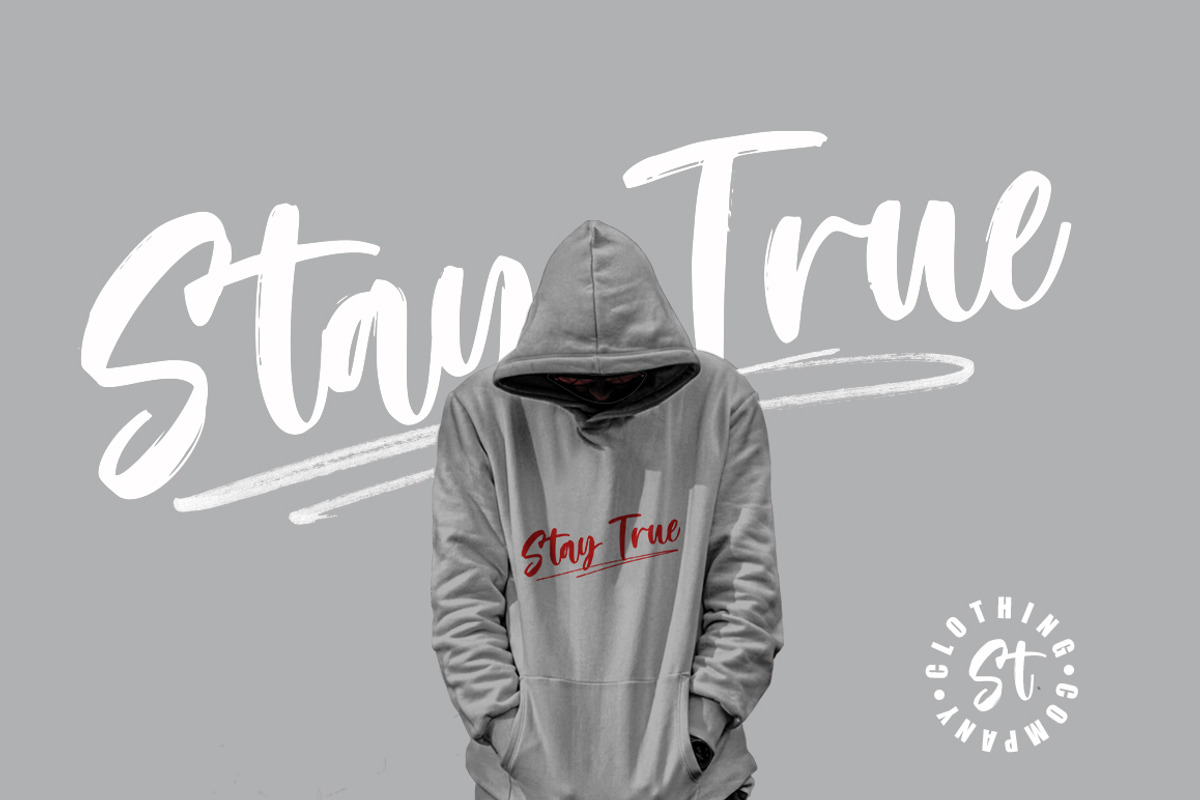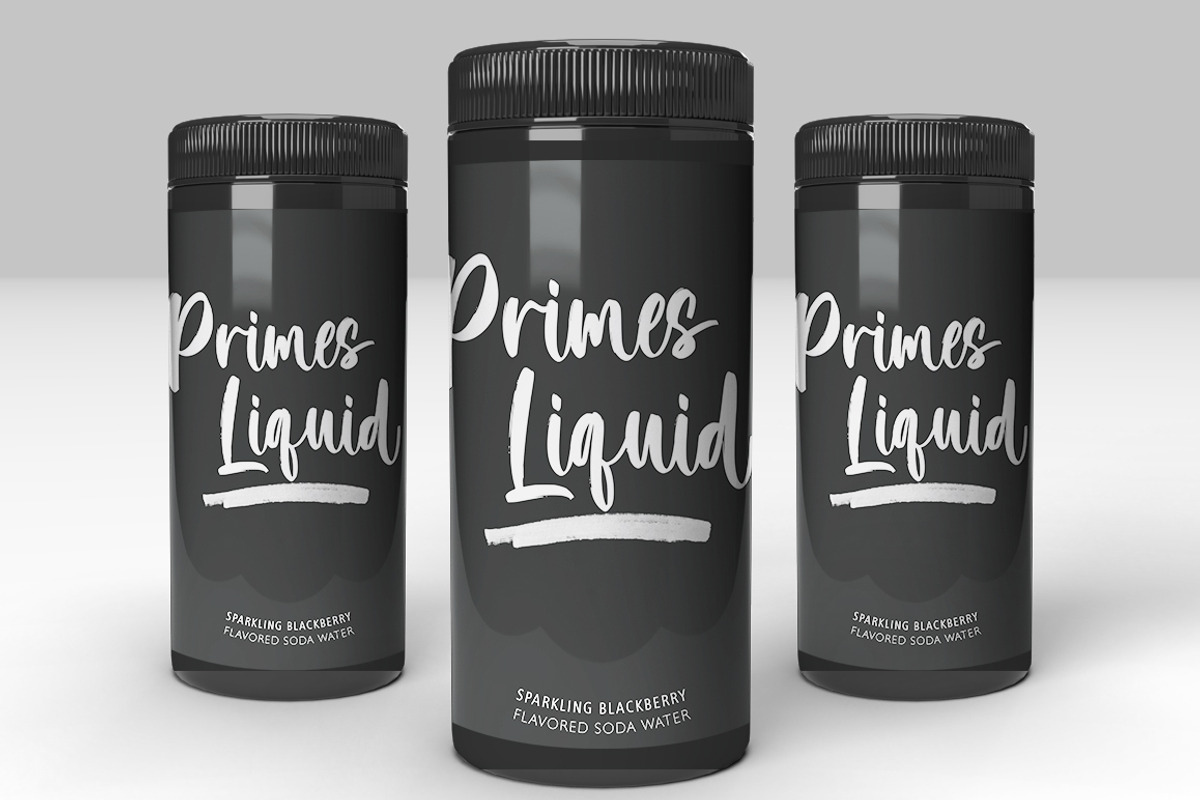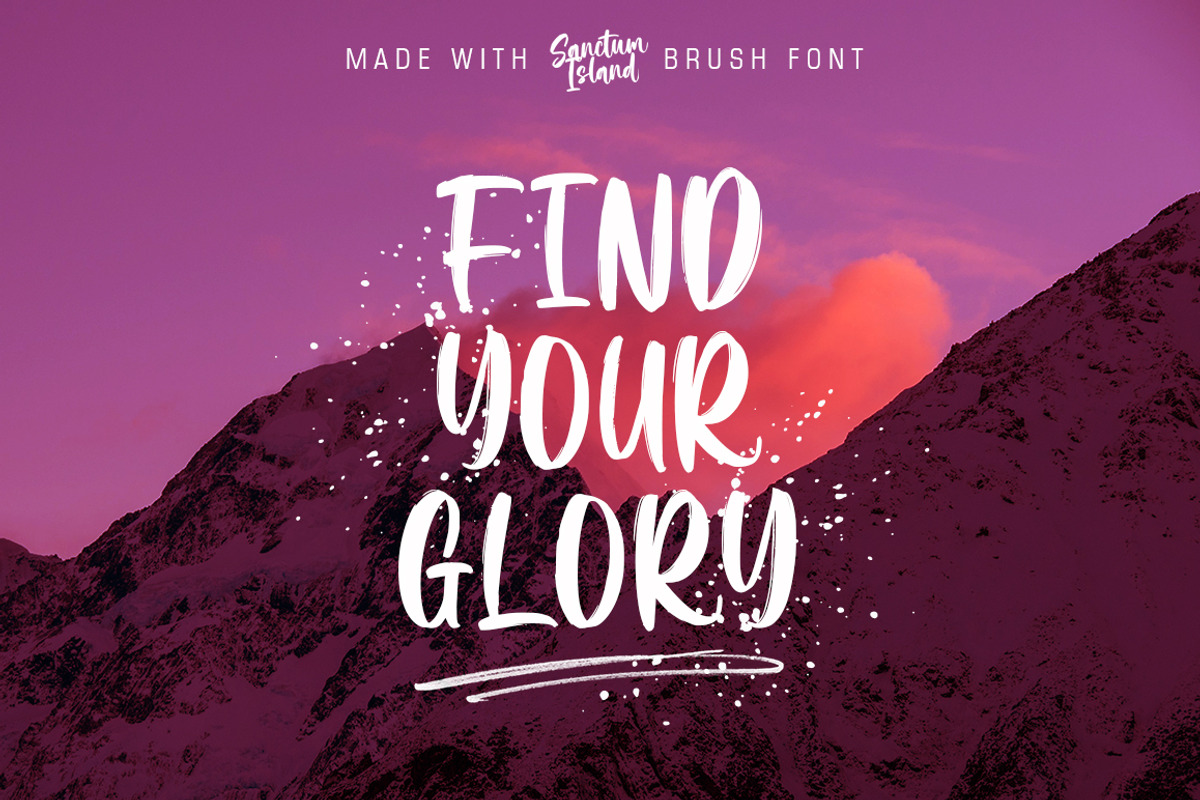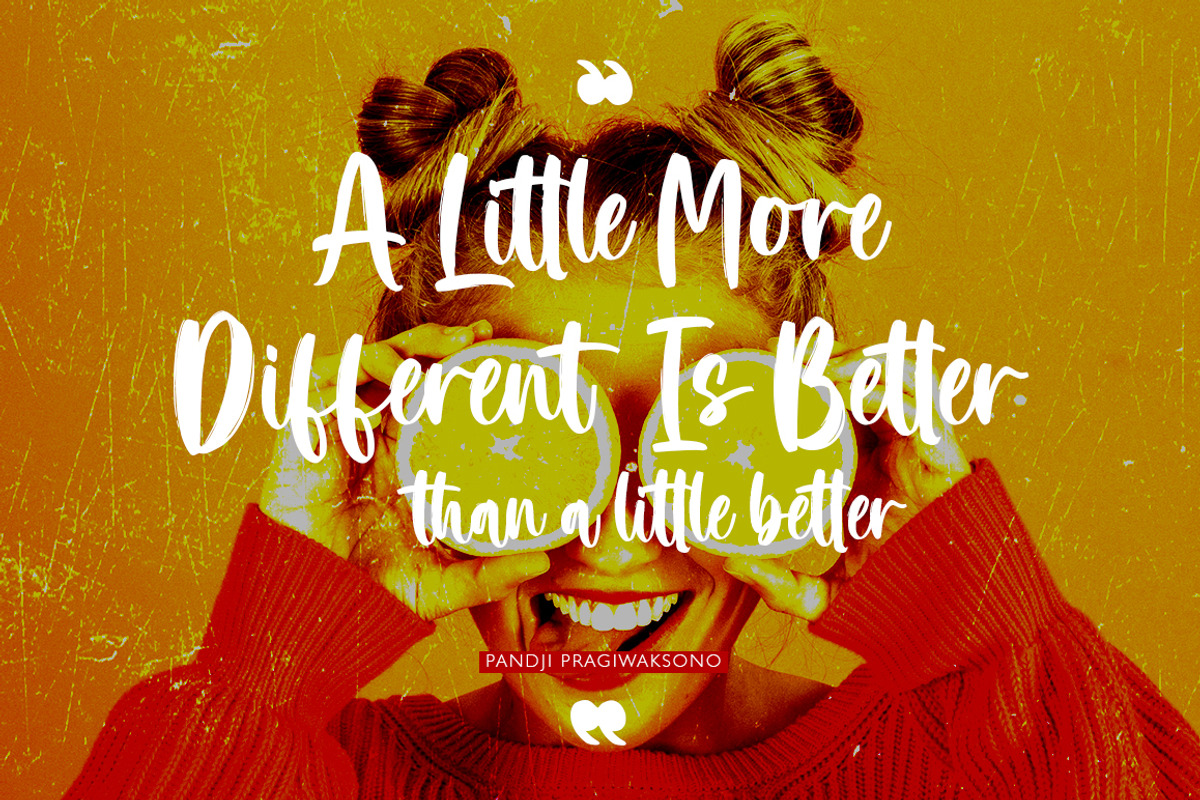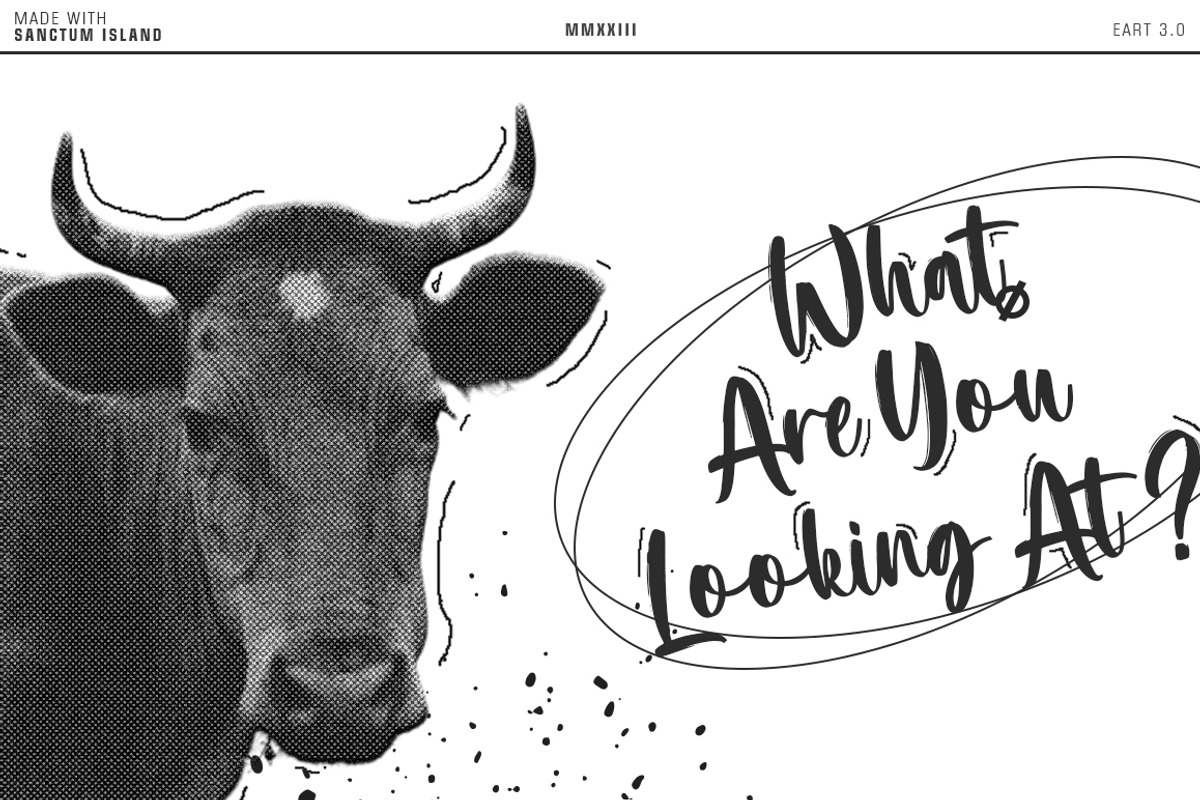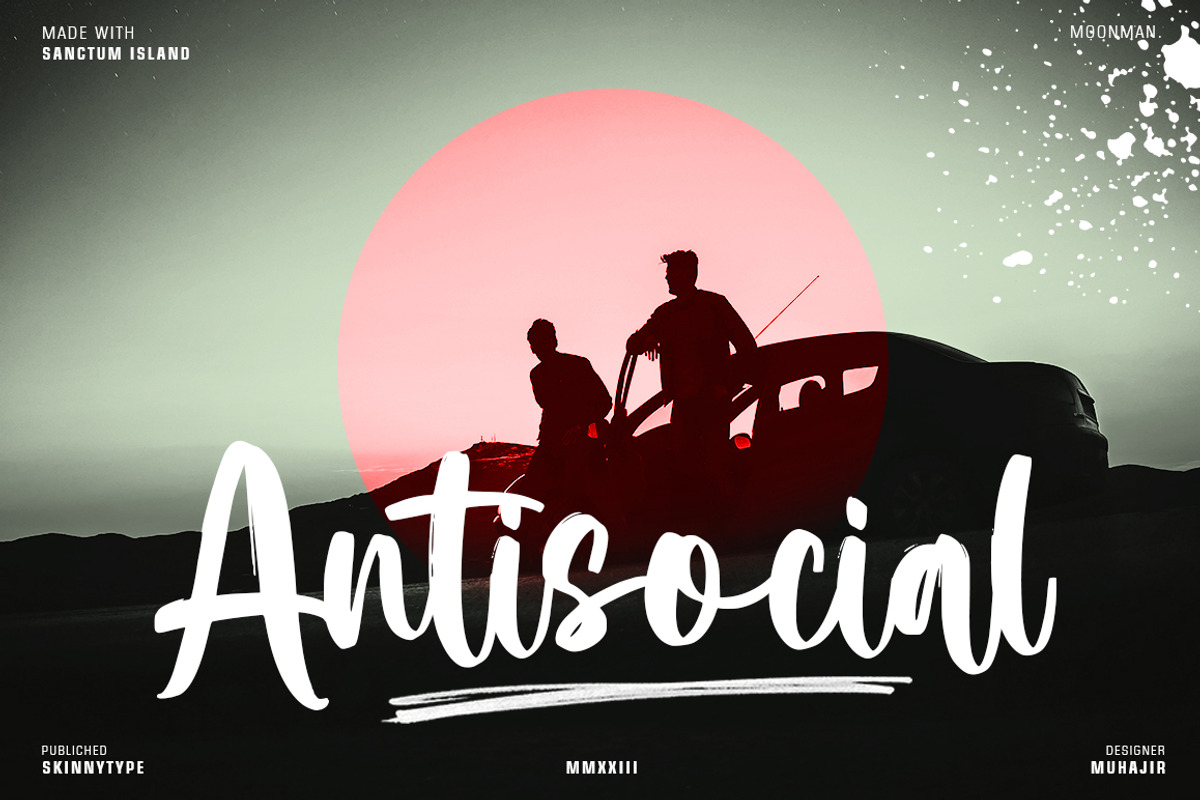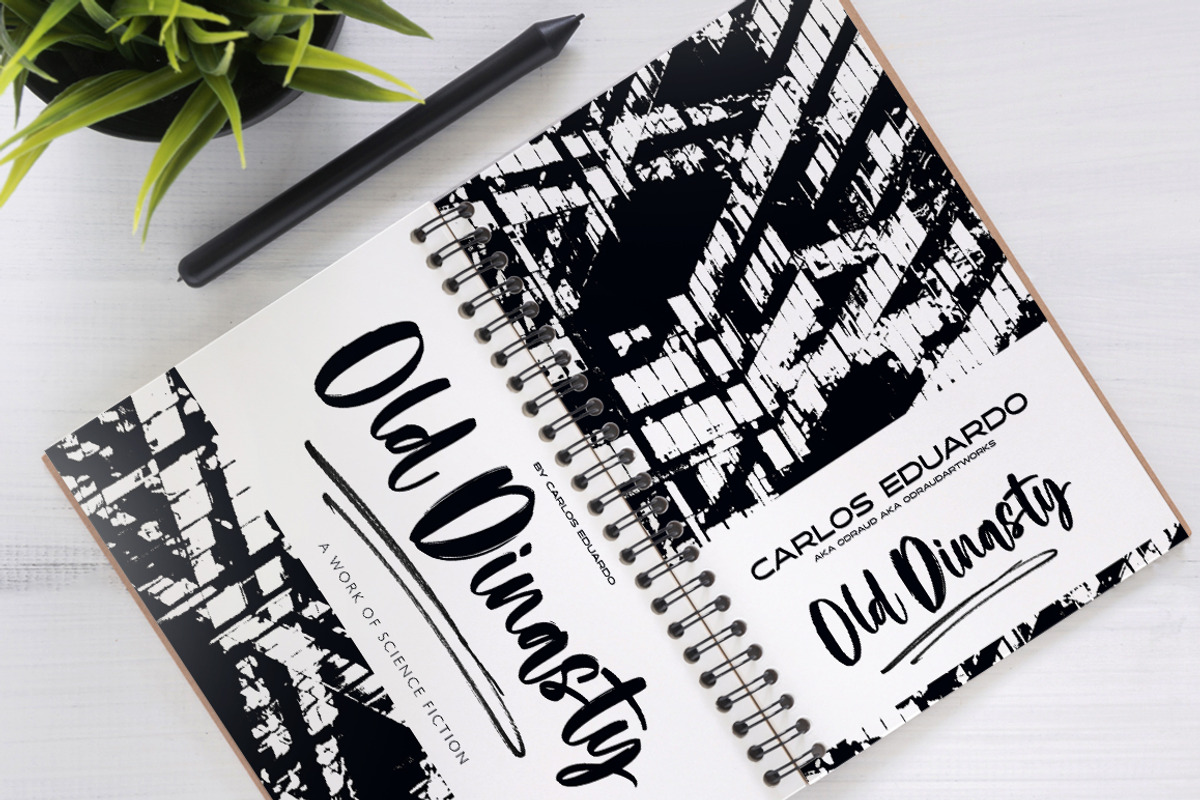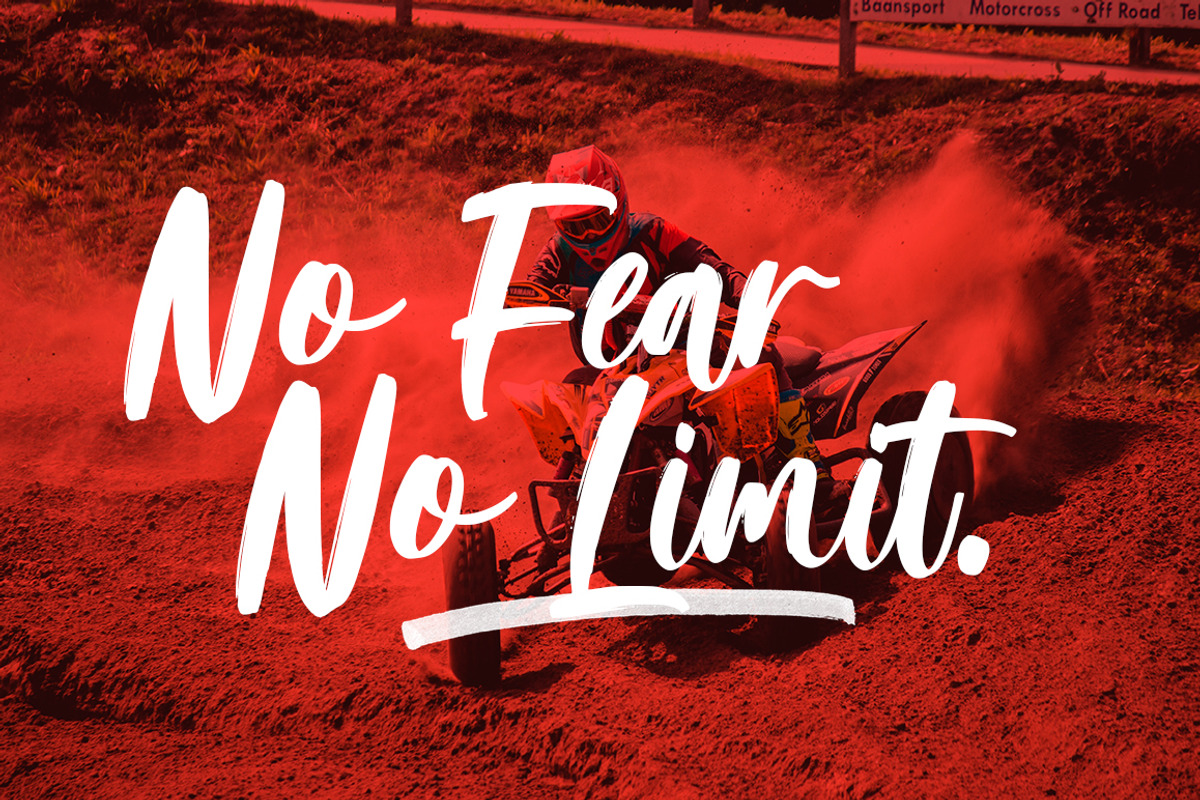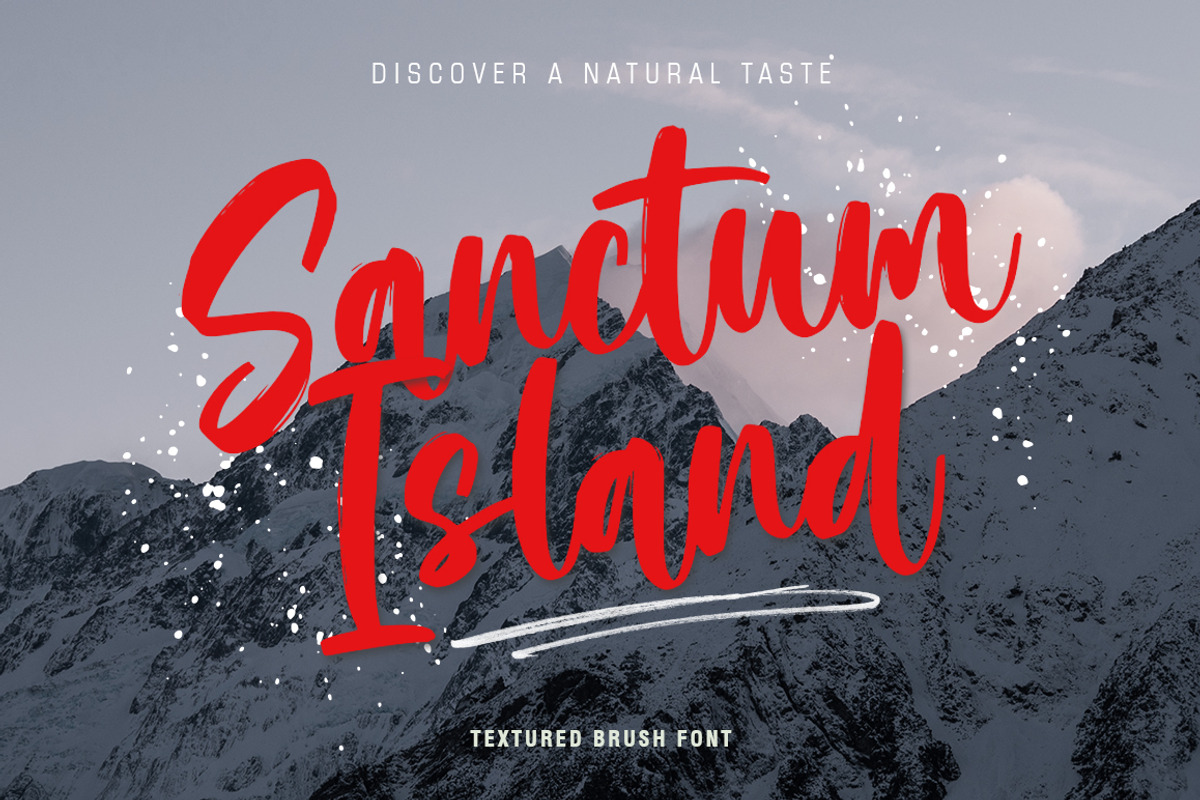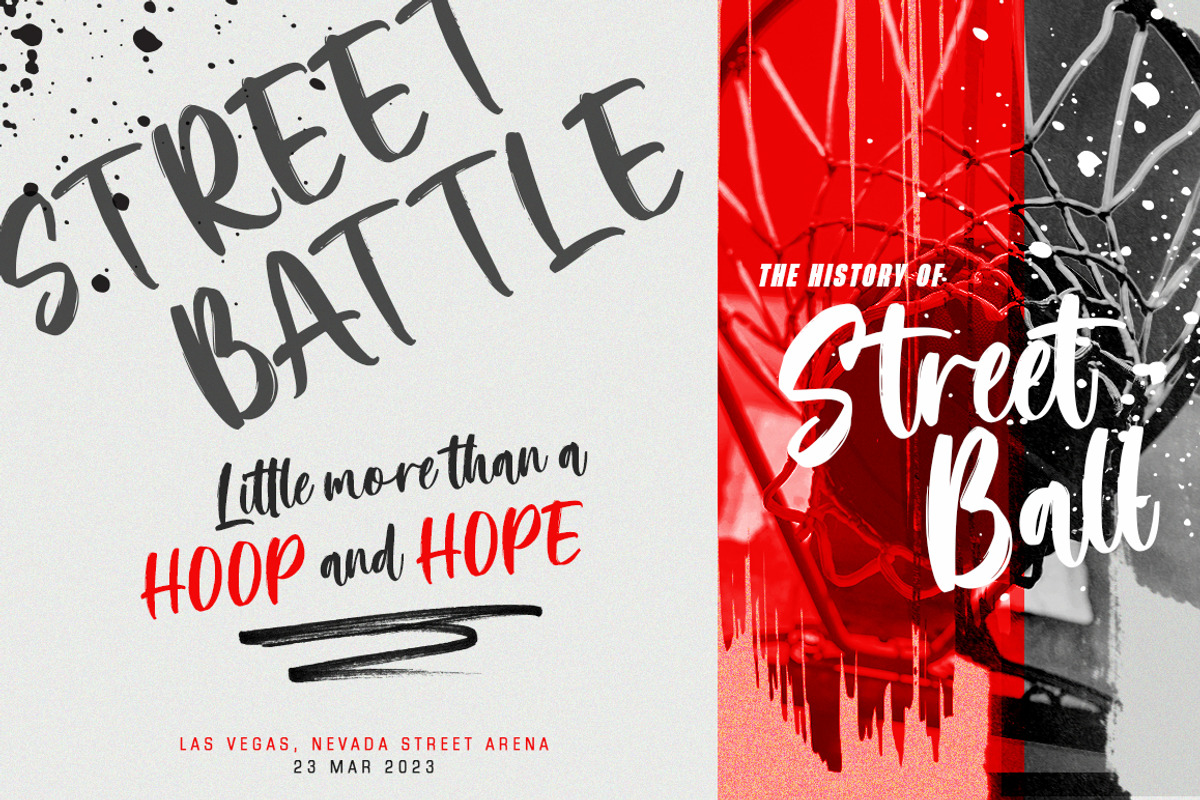
Sanctum Island - Textured Brush Font
Introducing Sanctum Island an handwritten font with a high detailed dry brush texture.
Sanctum Island has been designed to fit a wide range of projects from urban style to classic branding with a characters set to completely change the look of your design.
Please note that Sanctum Island includes both standard and alphabets.
Sanctum Island • A dry brush script font with uppercase and lowercase characters, ligatures, numerals and punctuation. Kingston Extras • A full set of brushed elements : 52 hand-drawn swashes, doodles and paint drips. How to use Sanctum Island Extras